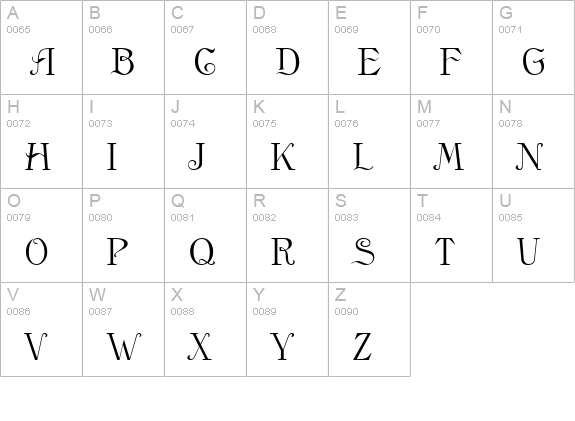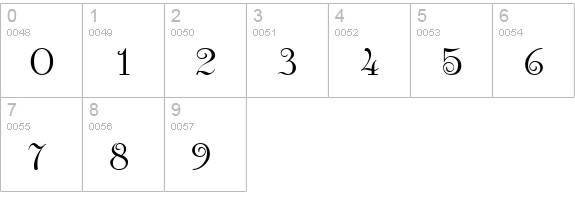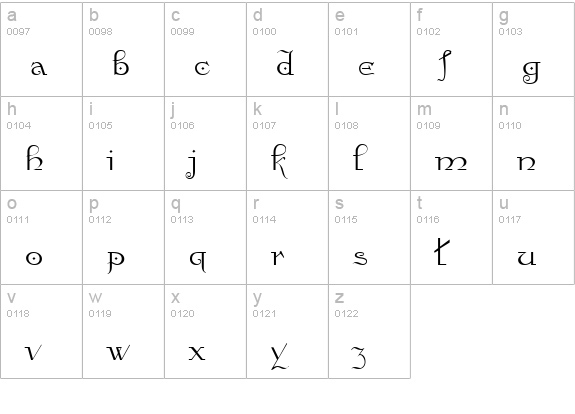
Anglican Regular is the standard, neutral variant in the Anglican typeface family \xE2\x80\x94 well suited to general body text, paragraphs, and standard typographic work.
Anglican Regular font is a timeless and elegant typeface that exudes sophistication and classic charm. With its clean lines and traditional letterforms, this font is perfect for adding a touch of refinement to your designs. Whether you're working on a formal invitation, a branding project, or crafting a stylish website, Anglican Regular font will elevate your work to the next level. The best part? Anglican Regular font is available for free download at FontsMarket.com. This means you can easily access this high-quality font without breaking the bank. So, why wait? Enhance your projects with the beauty and grace of Anglican Regular font today!